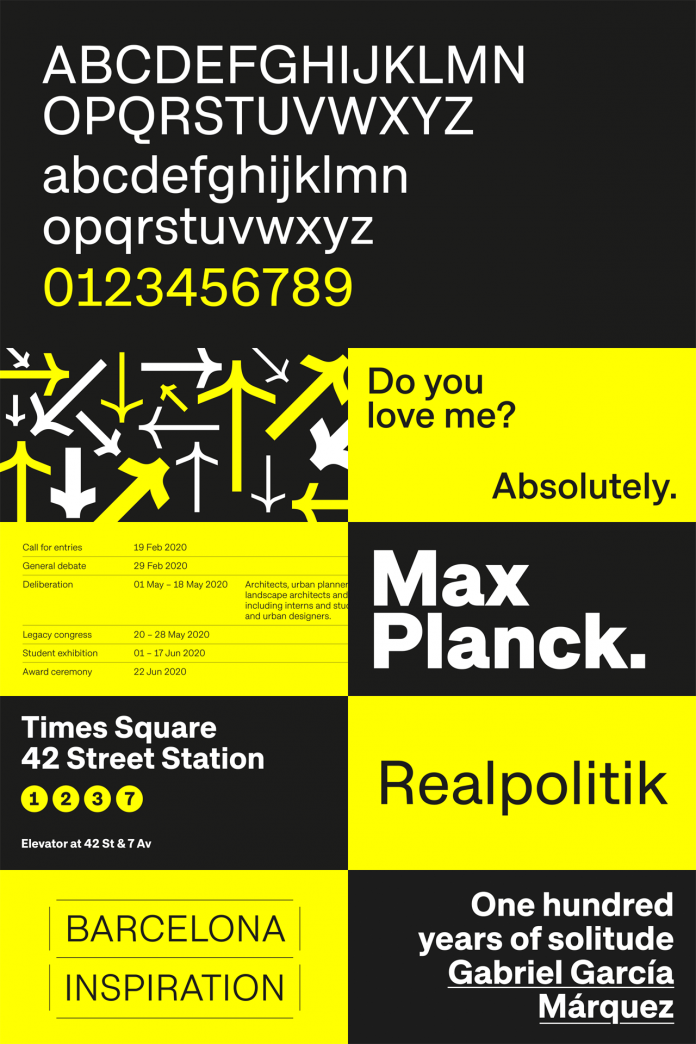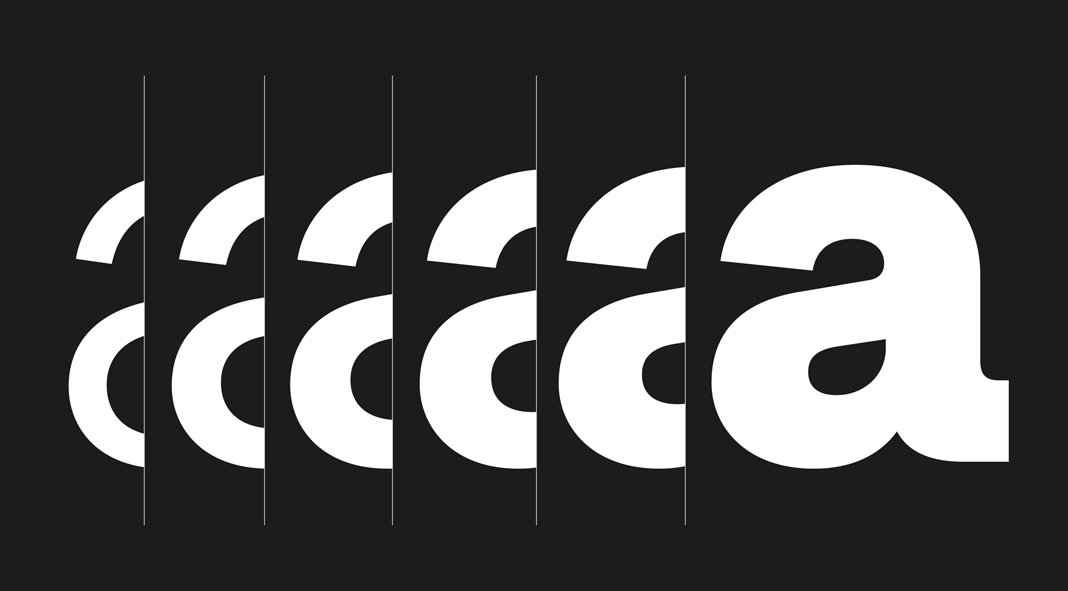
Approach, a modern sans serif font family consisting of sixteen styles.
Designed in 2019 by Eduardo Manso for foundry Emtype, Approach is a modern sans serif that shows numerous characteristics of early grotesques. The sixteen styles include eight weights plus matching Italics. Its low contrast typeface performs quite well in both printed matters and on screen. This kind of “elbow pipe” shape is one of the main characteristics of the Approach font family. It can be seen in several letters such as a, f, j, t, R, Q, and 1. You may notice that its synthetic punctuation and quotes give the typeface a more contemporary look and feel. The entire family is available for purchase as desktop and web font as well as embed fonts version for ebooks and mobile apps. To learn more, just click on one of the following links.